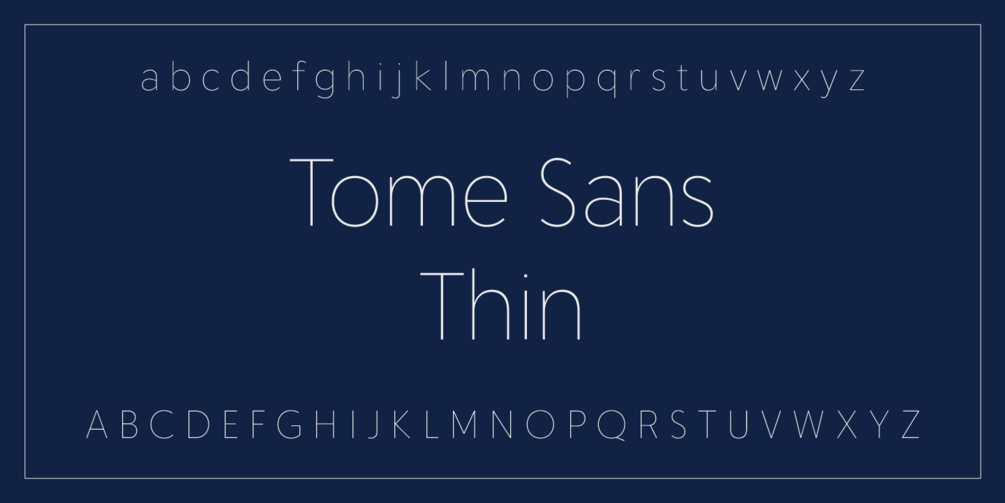
Tome Sans has a range of 10 weights from ExtraThin to Black with companion italics and 860 glyphs. Among those glyphs are several sets of numerals (including Tabular and Oldstyle figures), arrows, and a trove of letters supporting 316 languages. In addition, a host of thoughtful but unobtrusive OpenType features are built in and ready to assist with setting your composition. Give Tome Sans a spin; you’ll agree this family is a valuable typographic toolset for any designer.